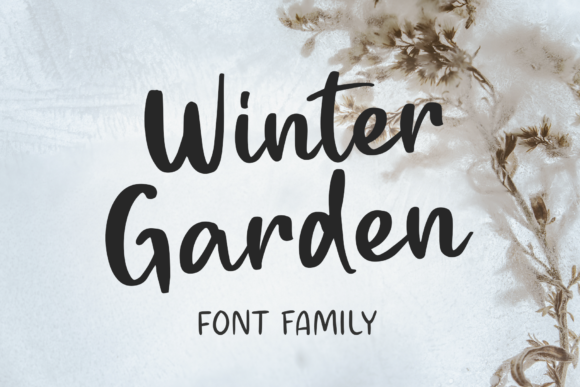
Introducing Winter Garden Font, the ultimate choice for all your creative ventures! Crafted with utmost precision by the talented Pasha Larin, this captivating font family is a must-have for anyone seeking the perfect blend of elegance and uniqueness.
Winter Garden offers a variety of stunning options to elevate your designs. With its script, script with streaks, and sans versions, the possibilities are truly endless. Each character is flawlessly handwritten, exuding a sense of charm that effortlessly catches the eye.
Unlock your creativity with Winter Garden's vast potential. From designing eye-catching templates and captivating invitations to establishing a strong brand identity, these fonts ensure your message is conveyed with style. Transform your marketing materials into works of art that leave a lasting impression on your audience.
Immerse yourself in the world of Winter Garden Font and explore its versatile applications. Whether you're designing captivating book covers, creating awe-inspiring magazines, or crafting personalized stationery, this font family has got you covered. Its seamless integration with any project will bring your vision to life.
Unleash your imagination and let Winter Garden Font become your secret weapon for logo design that truly stands out. With its artistic flair and refined aesthetics, your brand will effortlessly capture attention and leave a lasting impact.
Experience Winter Garden Font's enchanting beauty and let your designs flourish with elegance and sophistication. It's time to make a statement and leave your mark on the world. Get your hands on Winter Garden Font now and embark on a journey of creative excellence.